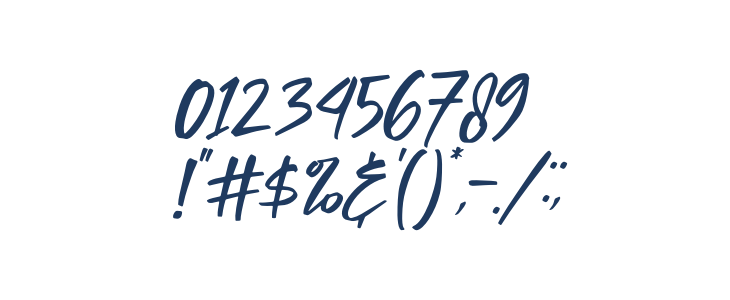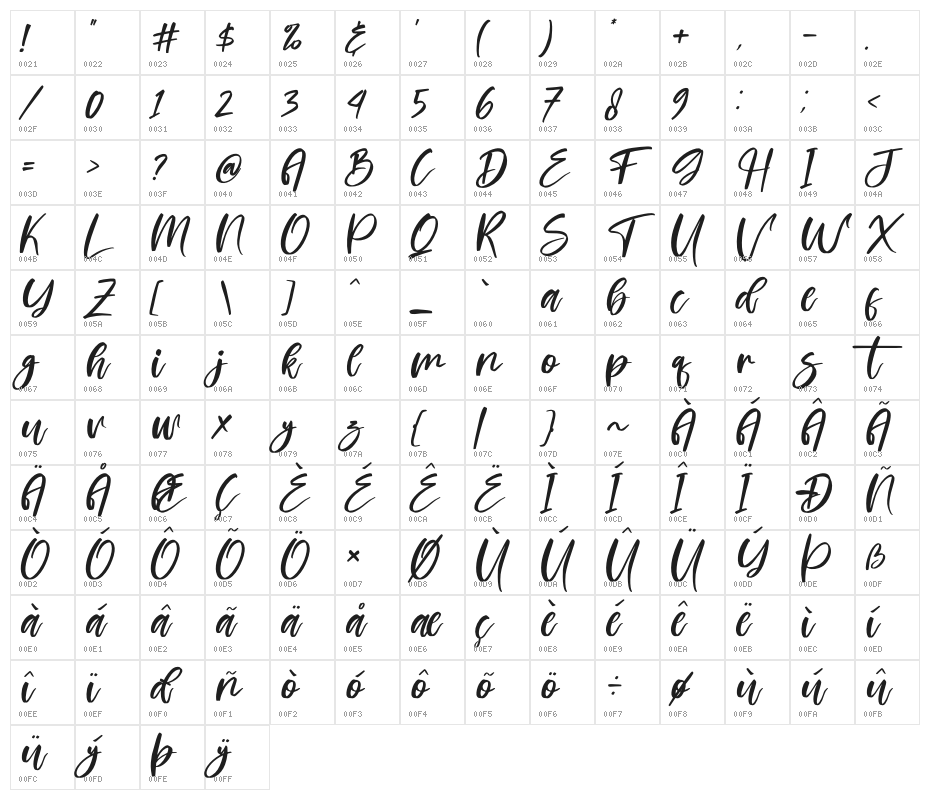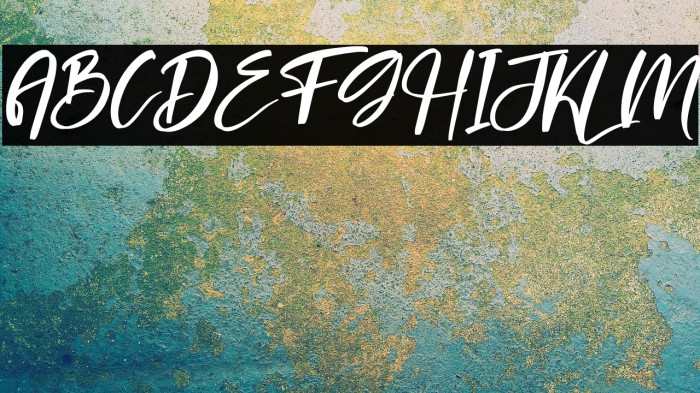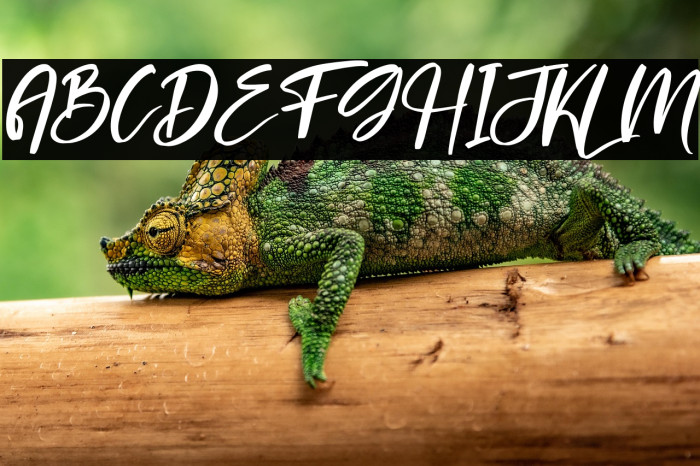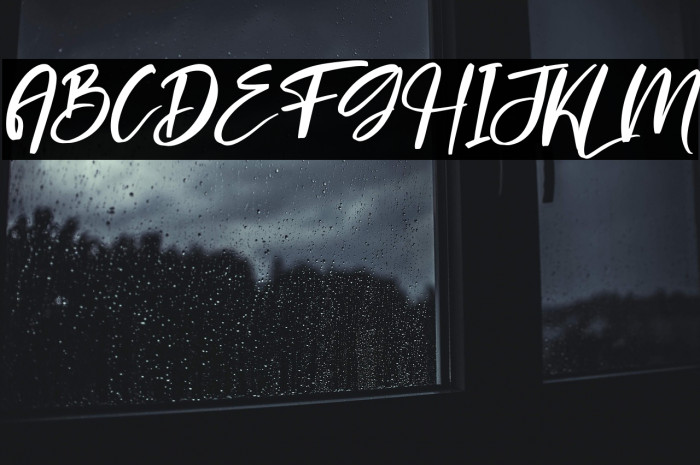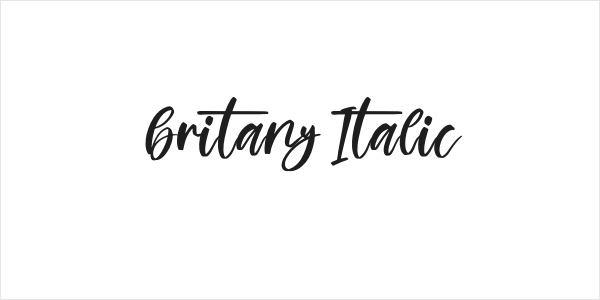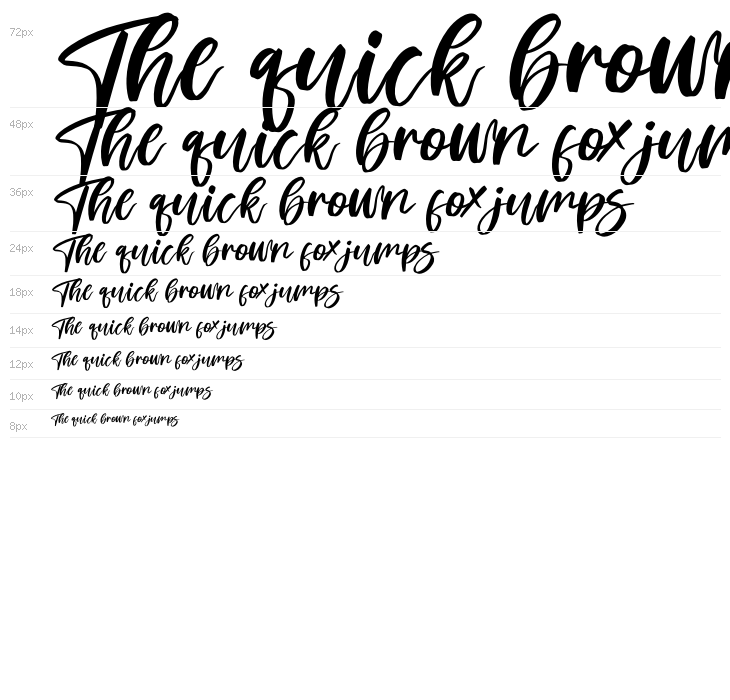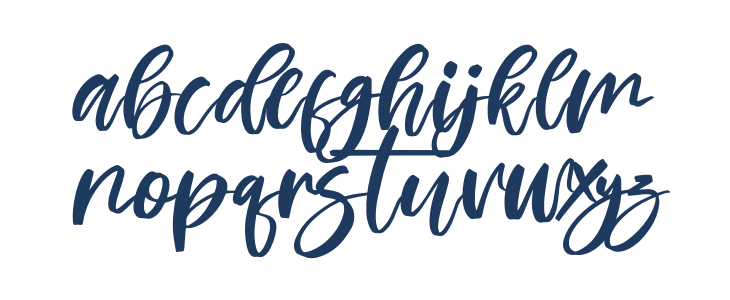
britany Italic Font
britany Italic Description
This font features a dynamic and expressive handwritten style, characterized by fluid, cursive strokes that convey a sense of movement and elegance. The uppercase letters are bold and slightly slanted, giving them a modern and stylish appearance. The lowercase letters maintain a consistent flow, with some characters extending below the baseline, enhancing the script-like quality. Numbers and special characters are crafted with the same attention to detail, ensuring a cohesive look throughout. The overall design is both artistic and legible, making it suitable for a variety of creative applications.